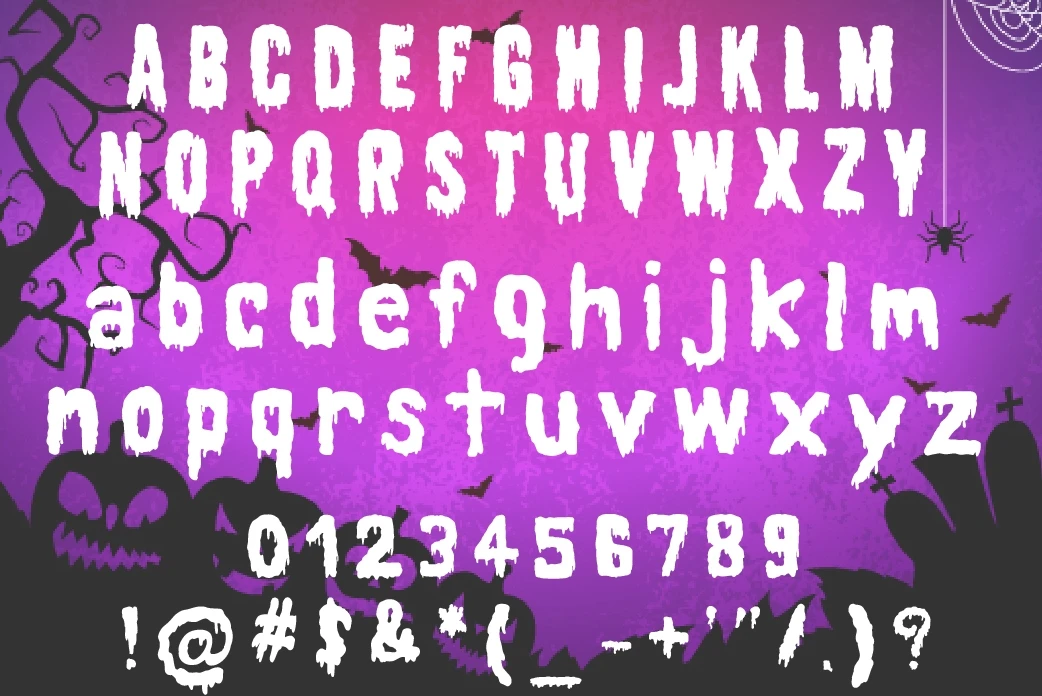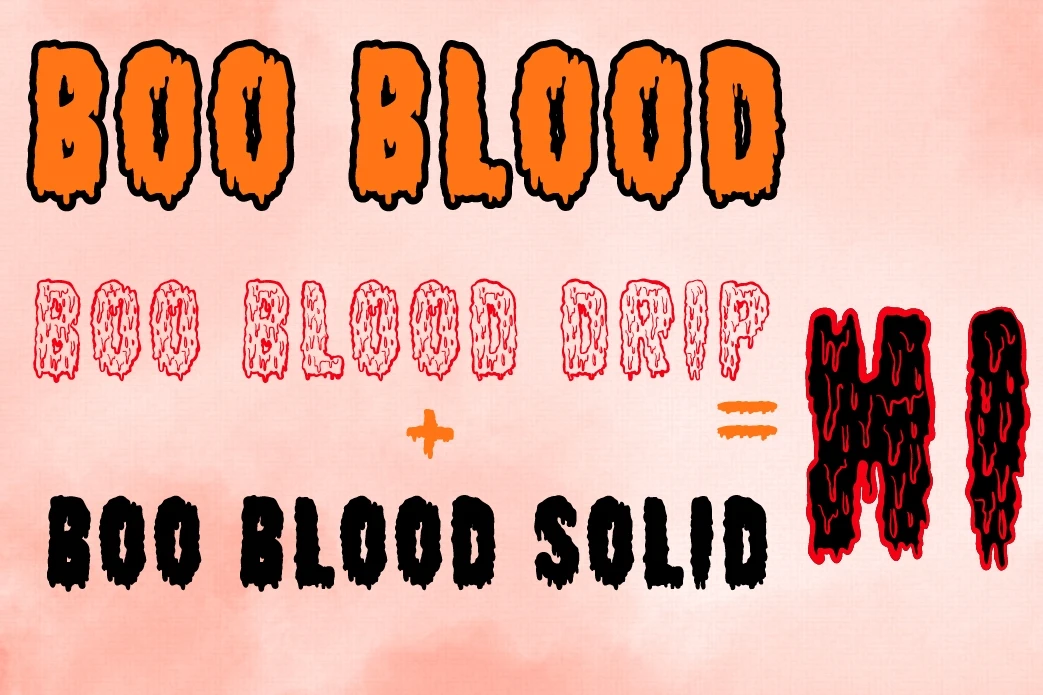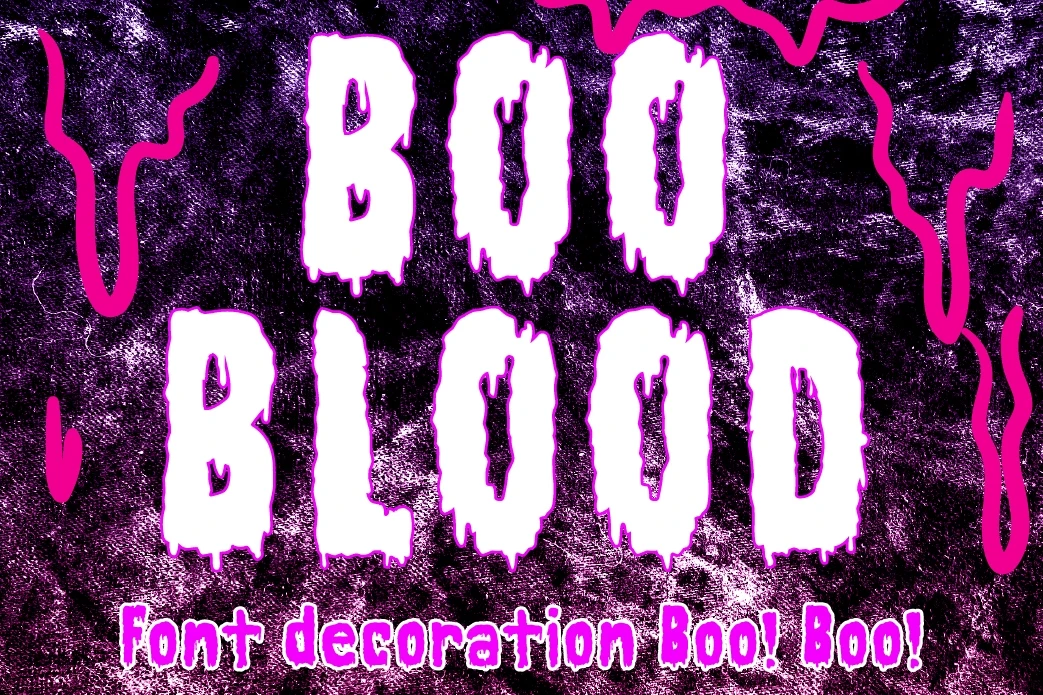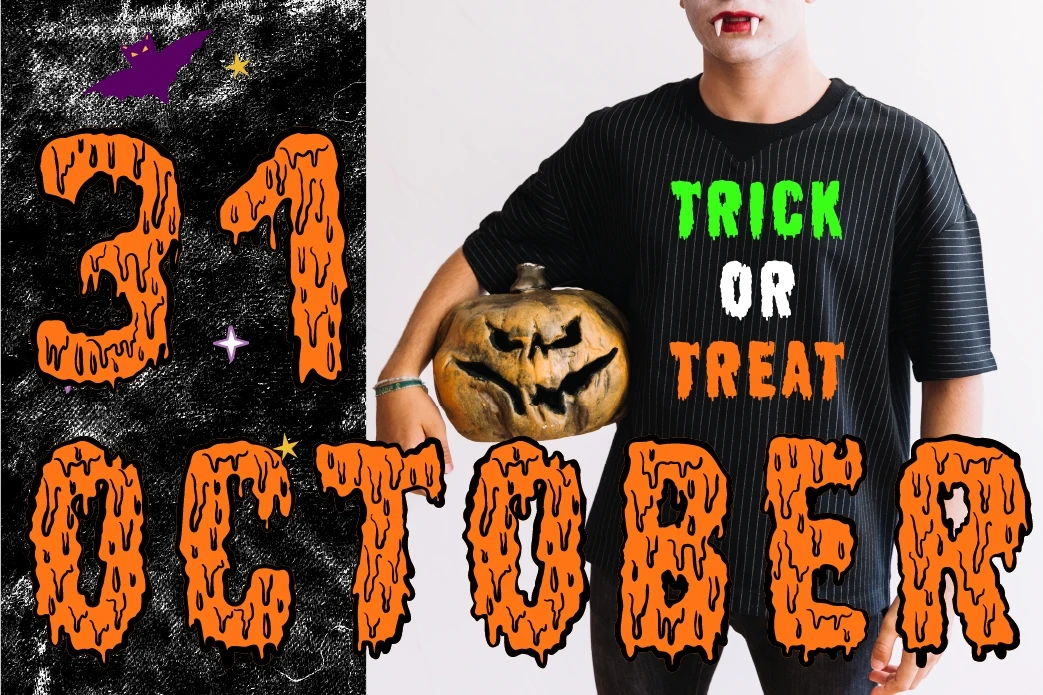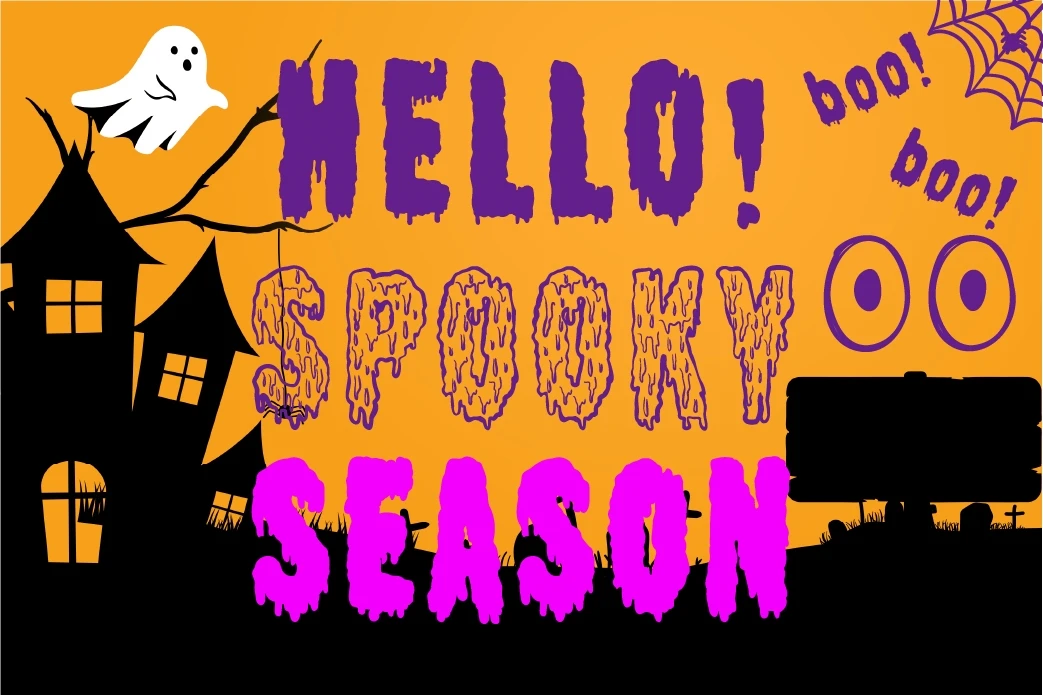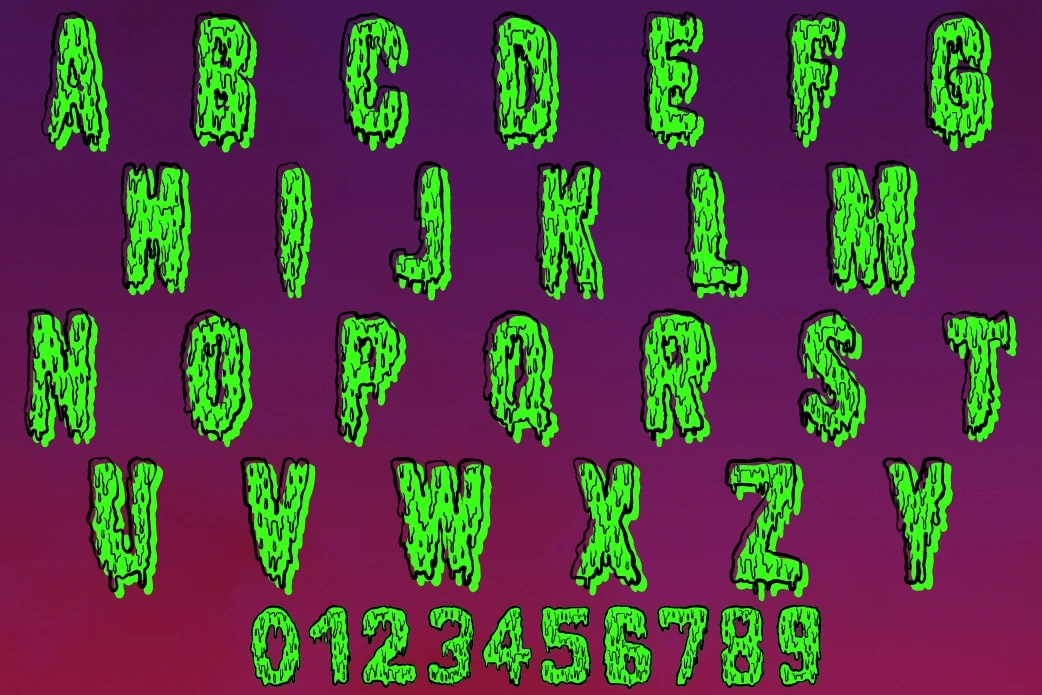
"Boo Blood " Welcome the awaited season with this Halloween themed set.
Perfect for decorating party at home, school, invitation card and your web design in horror, spooky theme.